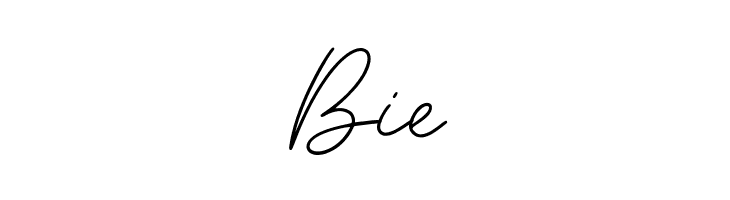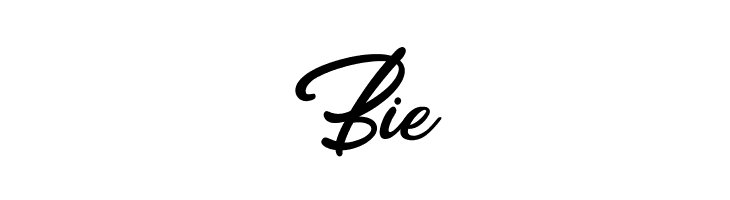
A bold, geometric font with a futuristic and industrial design.
A bold, geometric font with a futuristic and blocky design.
An elegant script font with intricate swirls and flourishes.
A distressed, grunge-style font with a bold, textured appearance.
A bold, brush-stroke font with a raw, expressive style.
A bold, decorative font with a perforated, industrial look.
A bold, distressed font with a vintage, textured appearance.
A bold, distressed font with a textured, vintage appearance.
A bold, distressed font with a grunge aesthetic and splatter effects.
Elegant cursive script with flowing, interconnected letters.
A cursive, handwritten font with elegant, flowing strokes.
A decorative script font with elegant, flowing characters and ornate swashes.
A fluid and elegant script font with dynamic curves and balanced rhythm.
A rugged, distressed font with a bold, hand-drawn appearance.
A modern, handwritten font with a casual and elegant style.
A bold, graffiti-inspired font with angular, dynamic characters.
An elegant, cursive script font with flowing, ornate characters.
A bold, industrial font with characters enclosed in square frames connected by chains.
A bold, distressed font with a gritty, textured appearance.
A bold, distressed font with a grunge, war-torn aesthetic.
An elegant and intricate script font with decorative uppercase and flowing lowercase letters.
A collection of whimsical, character-based designs resembling cartoonish warriors.
A decorative dingbat font of whimsical warrior and tribal characters.
A playful, handwritten font with irregular, organic shapes and a whimsical style.
A bold, rounded font with smooth curves and uniform strokes.
A bold, stencil-style font with a military-inspired design.
A bold, cursive script font with dynamic, flowing letterforms.
A cursive script font with elegant, flowing strokes and moderate contrast.
A bold, distressed font with a vintage, grunge style.
A bold, distressed font with a grunge texture and high contrast.
A playful, fluid font with organic, water-like shapes and bold, rounded forms.
A bold, high-contrast serif font with a modern yet classic style.
A bold, dynamic script font with fluid, cursive strokes.
A playful and elegant handwritten script with smooth, flowing characters.